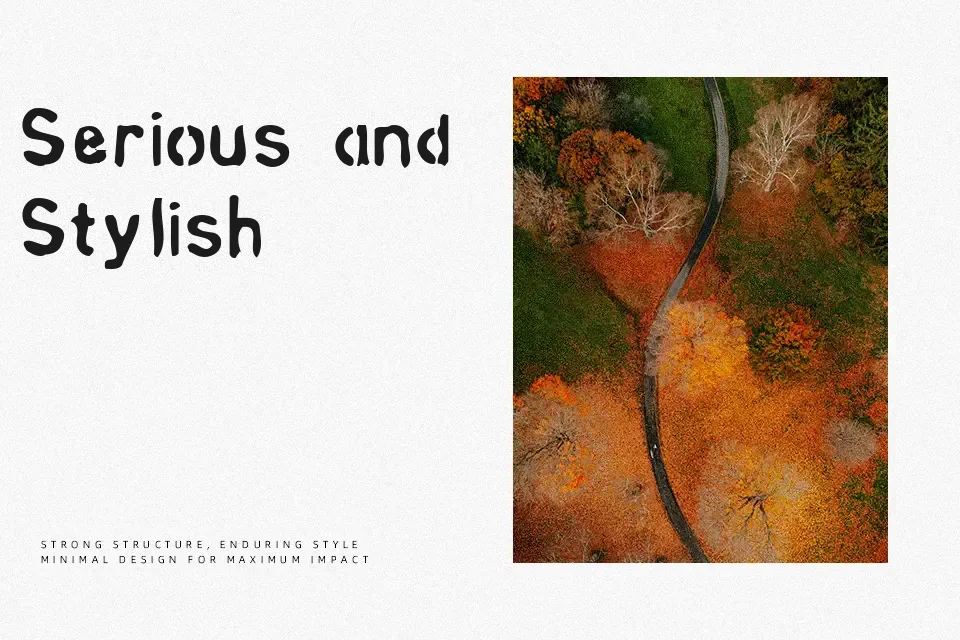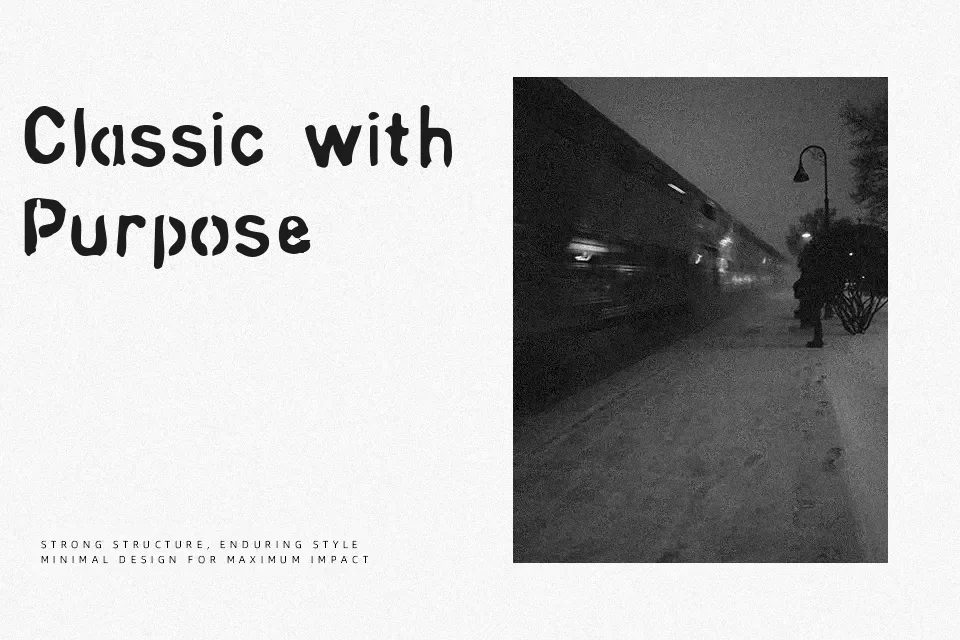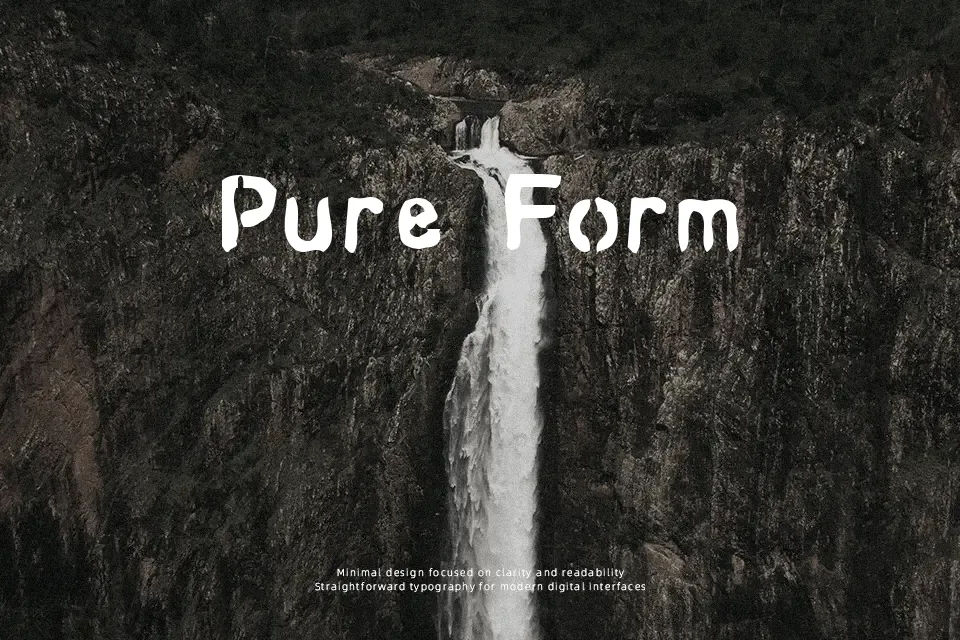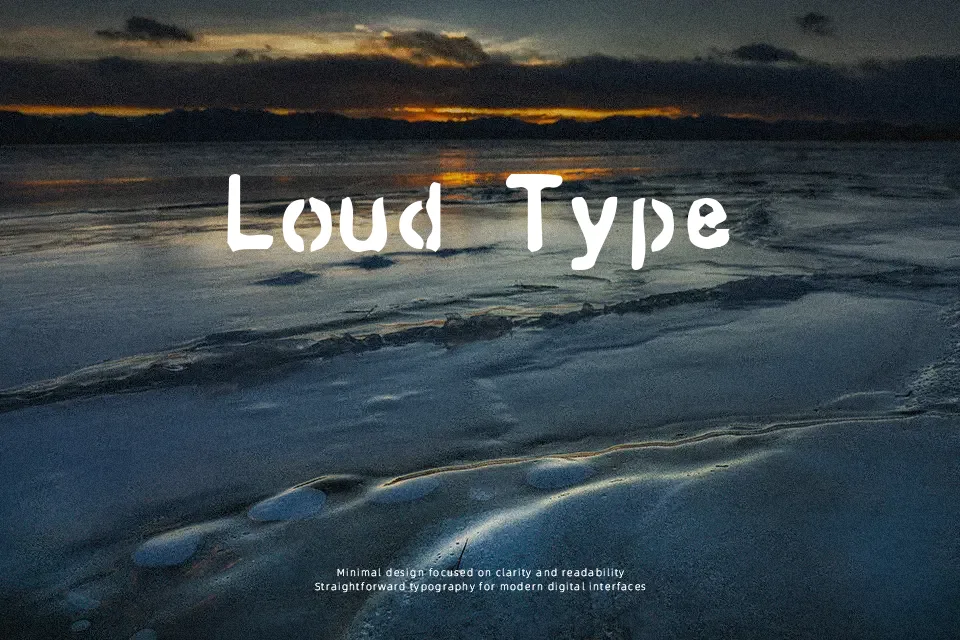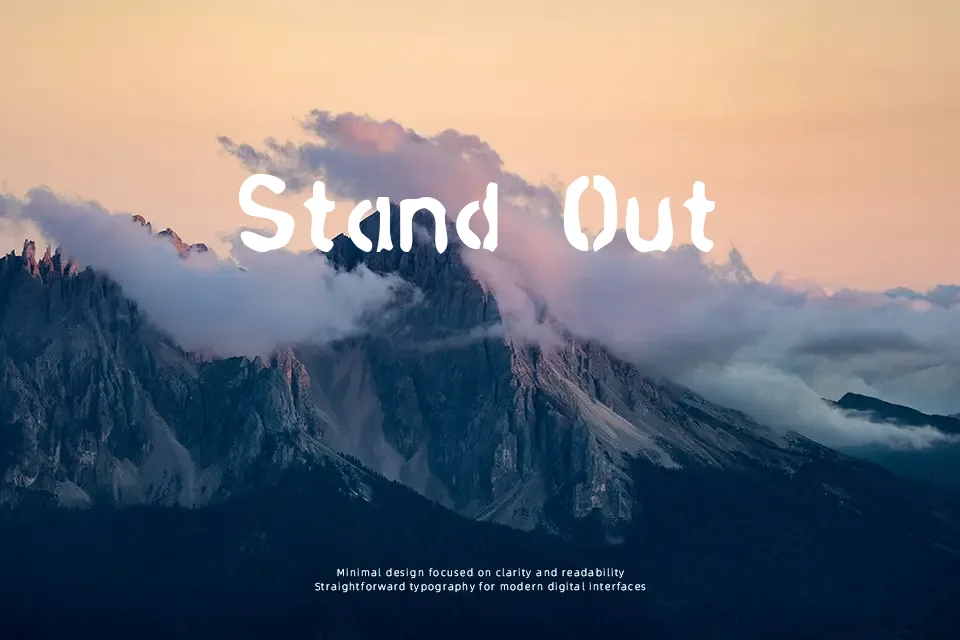
Analog Font
Designed by J. Delpesco
Analog carries the DNA of military stencil lettering — thick strokes, rigid structure, and deliberate interruptions in letterform continuity that give it that cut-out, spray-painted feel. Spacing is tight, letterforms are upright, and contrast is minimal, resulting in a look that reads as blunt and functional rather than decorative. It works well for short headline copy in posters, album covers, or streetwear graphics where toughness is part of the message. Pairing it with body text is where it falls apart — the stencil breaks reduce readability at small sizes, and it loses all its edge in any context that asks for polish. Think less branding suite, more attitude statement.
Best For:- Military or tactical-themed poster headlines
– Streetwear and apparel graphic lettering
– Music event flyers and album artwork titles
– Merchandise labels needing a raw, industrial look
Not Ideal For:- Body text or any paragraph-length copy
– Corporate or professional business documents
– Elegant or feminine design contexts
– Digital UI labels requiring clean legibility
Perfect for advertising, branding, and fashion, with a bold and display style.